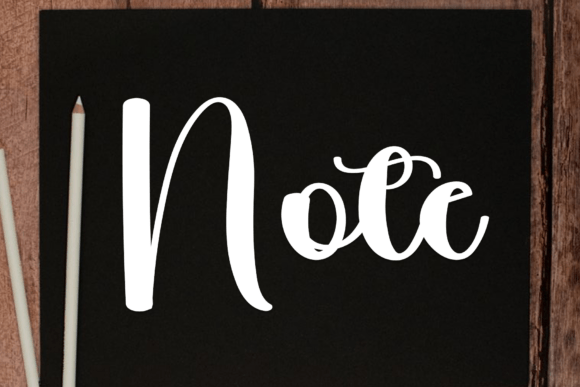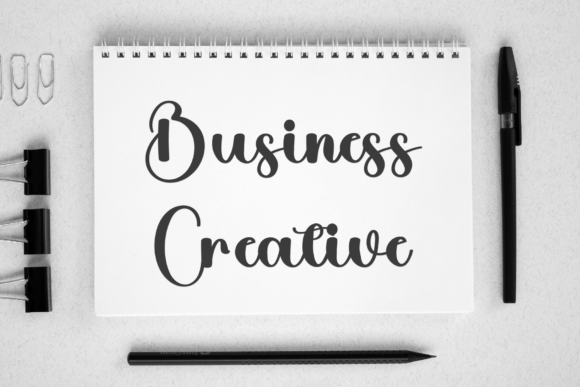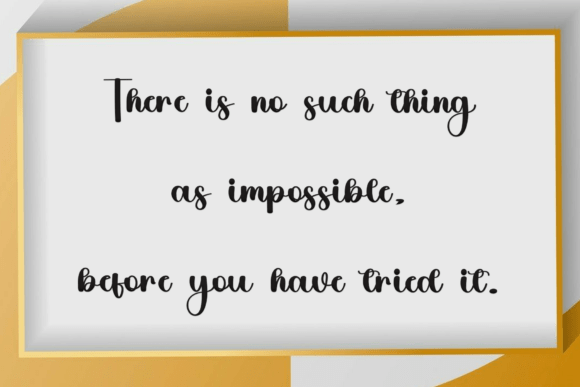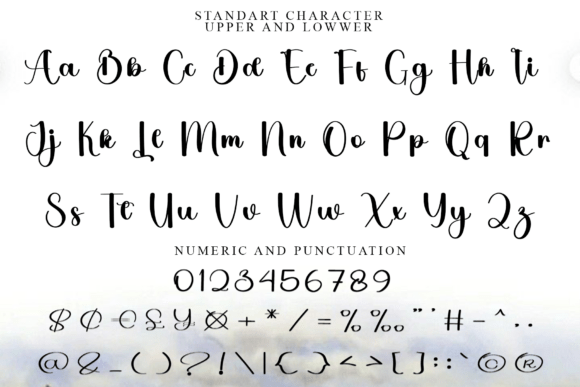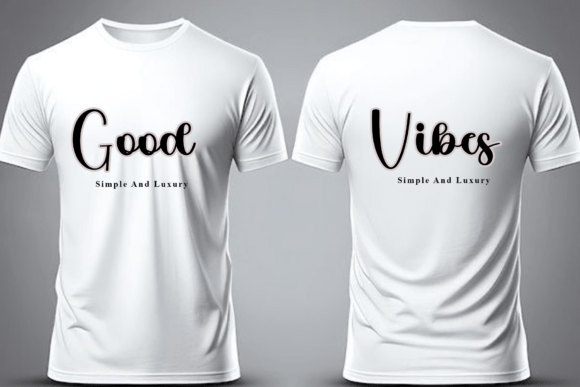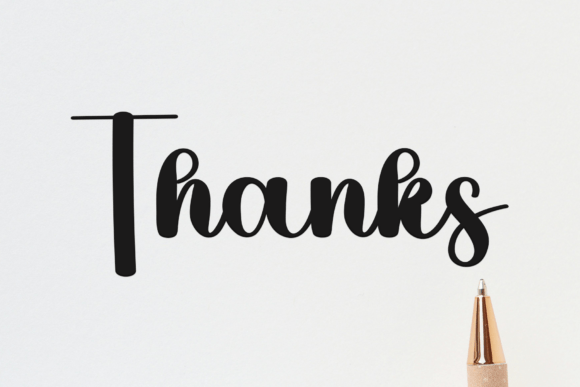
Discover the Beauty of Autumn
As a designer, there’s nothing quite like the feeling of stumbling upon a new font that sparks creativity and sets the tone for a project. For me, it was the Autumn Magnolia Font that captured my attention and transported me to a world of endless possibilities. This beautiful and eye-catching font, with its soft, unique touch, is a game-changer for designers and crafters alike.
The Autumn Magnolia Font is more than just a font – it’s a tool that brings your designs to life. With its distinctive strokes and versatile character, it’s perfect for a wide range of creative projects, from graphic design to hand-lettering and beyond. Whether you’re working on a new logo, creating a handmade card, or designing a digital product, this natural font style is sure to enhance your work and leave a lasting impression.
Autumn Magnolia Font Key Features
- Unique Characteristics: Autumn Magnolia Font features a unique blend of elegance and sophistication, with intricate details and subtle texture, making it perfect for formal and professional applications.
- Font Style: The font comes in a single style, but with multiple weights, from Light to Bold, allowing users to choose the perfect level of emphasis for their design.
- Language Support: Autumn Magnolia Font supports a wide range of languages, including Latin, Cyrillic, and Greek alphabets, making it suitable for international and multilingual designs.
- Character Set: The font includes a comprehensive character set, including uppercase and lowercase letters, numbers, punctuation marks, and special characters, ensuring that users have all the necessary glyphs for their design needs.
Autumn Magnolia Font Review
First off, I want to say that I really love the overall aesthetic of the Autumn Magnolia font. ✨ The intricate details and flowing curves evoke a sense of elegance and sophistication, making it perfect for high-end branding and advertising.
Here are some specific things that I think work well:
- ✨ The unique combination of traditional and modern elements creates a truly distinctive look.
- ✨ The font is highly legible, even at small sizes, making it perfect for body text.
- ✨ The variety of weights and styles available make it easy to customize and create a cohesive brand identity.
However, I do have a few concerns:
- ⚠️ The font can be a bit too ornate for some designs, overpowering other elements on the page.
- ⚠️ The high level of detail can make it difficult to edit and customize in some design software.
Overall, I think the Autumn Magnolia font is a great choice for designers who want to add a touch of luxury and sophistication to their designs. With its unique blend of traditional and modern elements, it’s sure to make a statement. However, it’s not the best choice for every project, and designers should be aware of its potential limitations.
Tips for Getting the Most Out of the Autumn Magnolia Font
Use the Autumn Magnolia font for autumn-themed designs, such as invitations, posters, and social media graphics.
Pair the font with warm, earthy colors to enhance its autumnal feel.
Experiment with different font sizes and styles to add visual interest to your designs.
The Autumn Magnolia font is perfect for:
Autumn-themed invitations and party decorations.
Outdoor advertising and signage.
Photography and design projects featuring fall landscapes and foliage.
Alternative Fonts to Autumn Magnolia
Bickham Script
Bickham Script is a classic, elegant script font ideal for invitations, greeting cards, and wedding stationery. It features flowing connections and refined flair, making it perfect for formal and sophisticated designs. When to use: Luxury brands, high-end weddings, and special occasions. Compared to Autumn Magnolia Font: While both fonts have a classic feel, Bickham Script is more refined and elegant, whereas Autumn Magnolia Font has a softer, more natural touch.